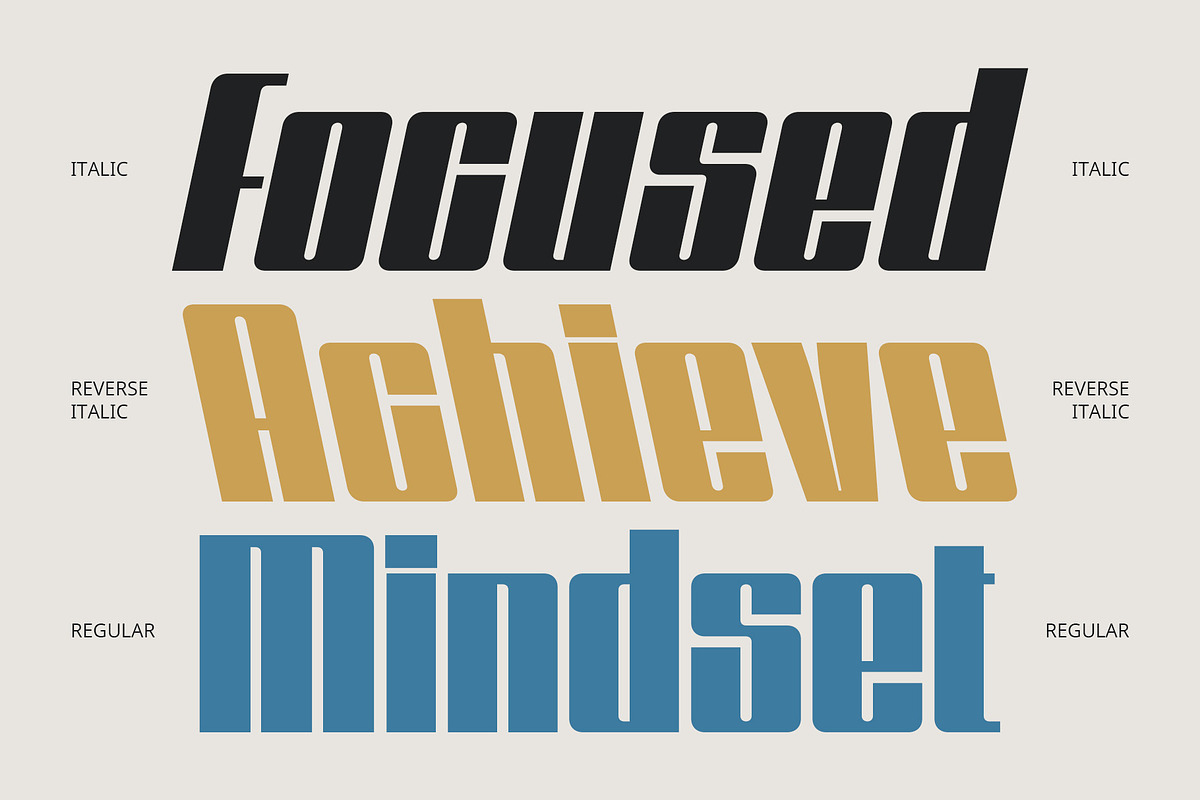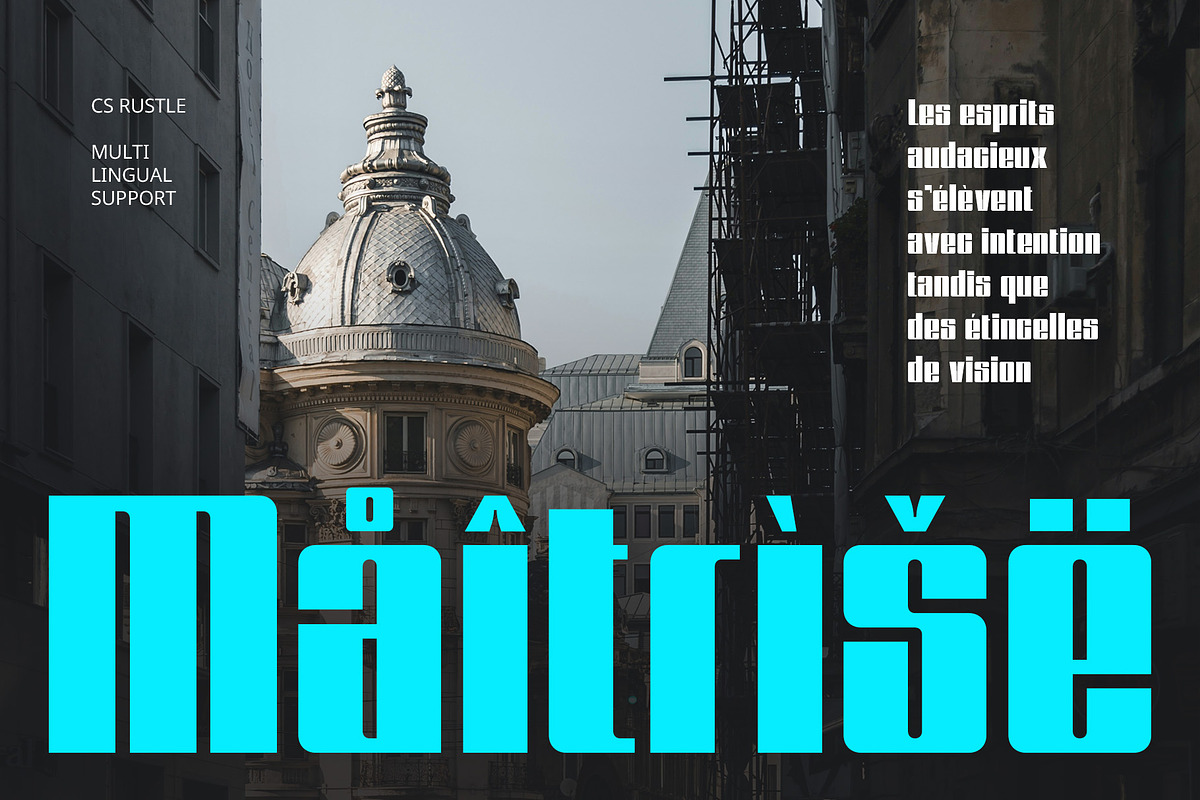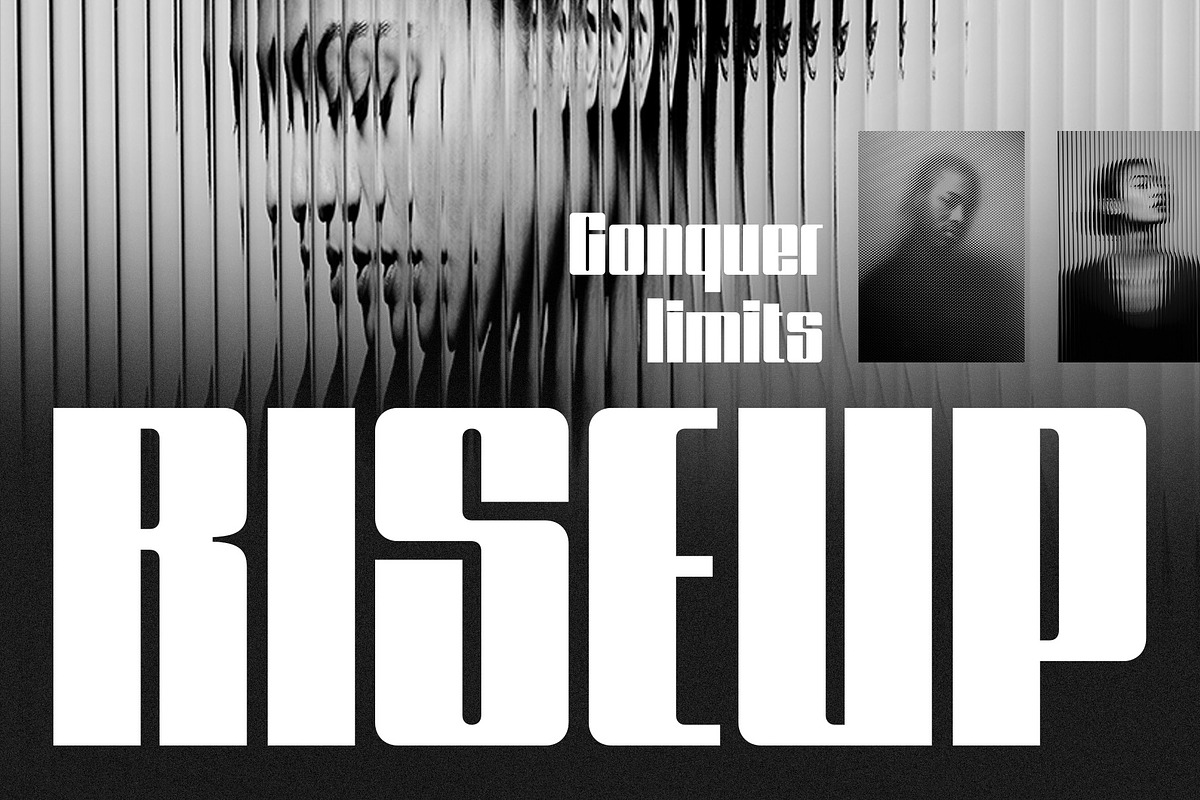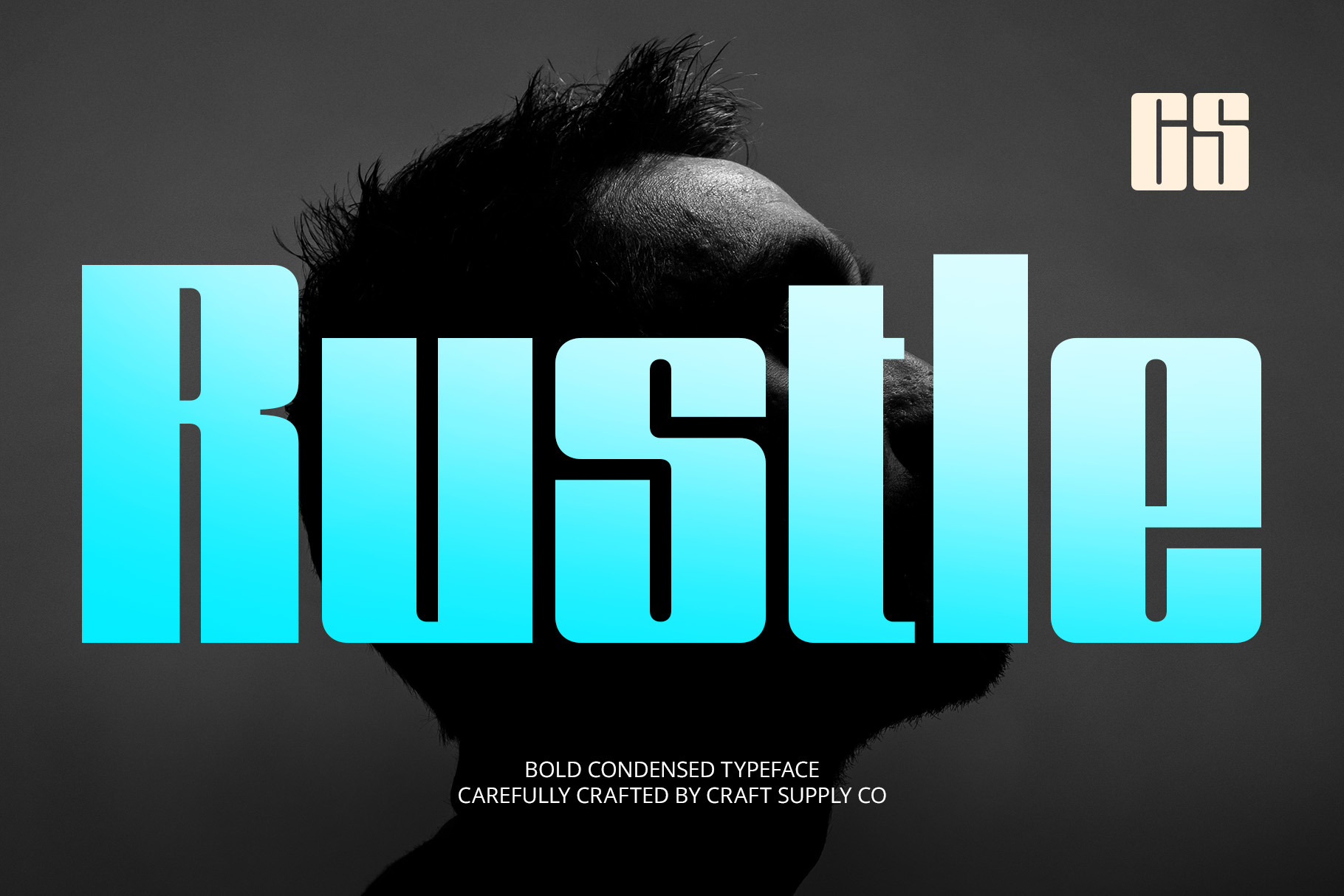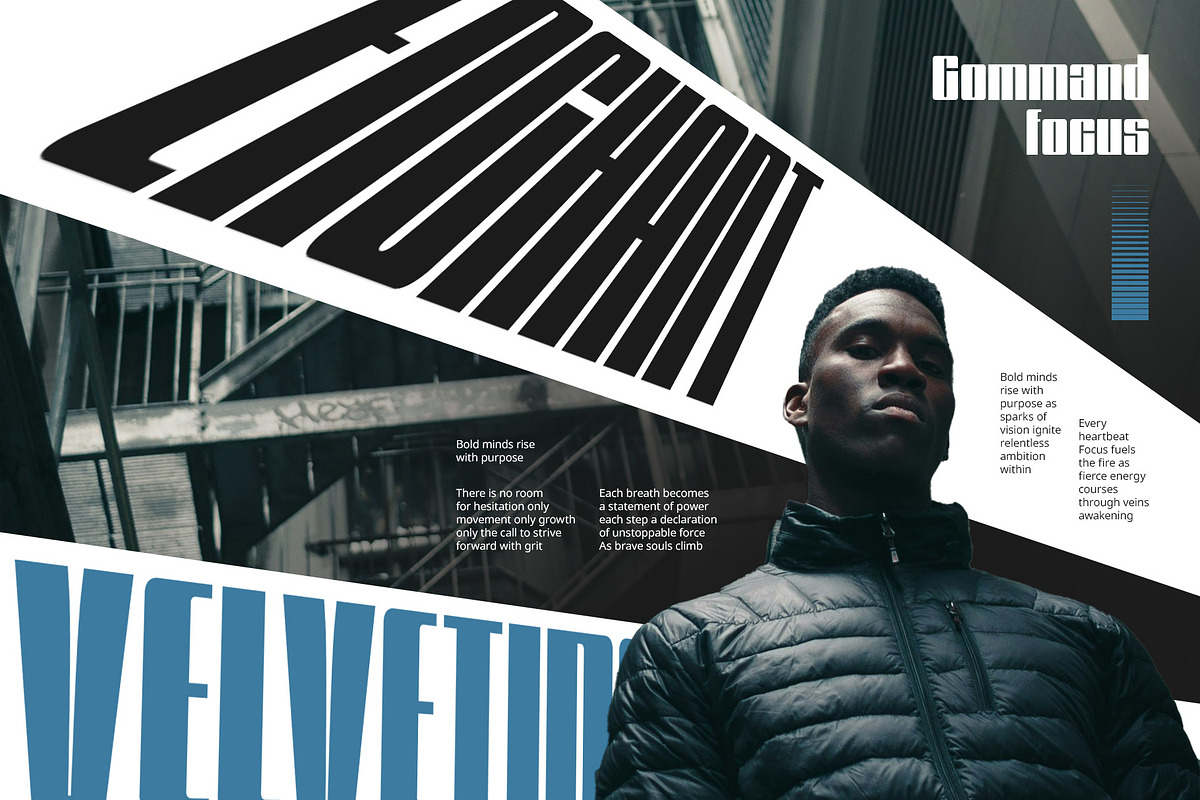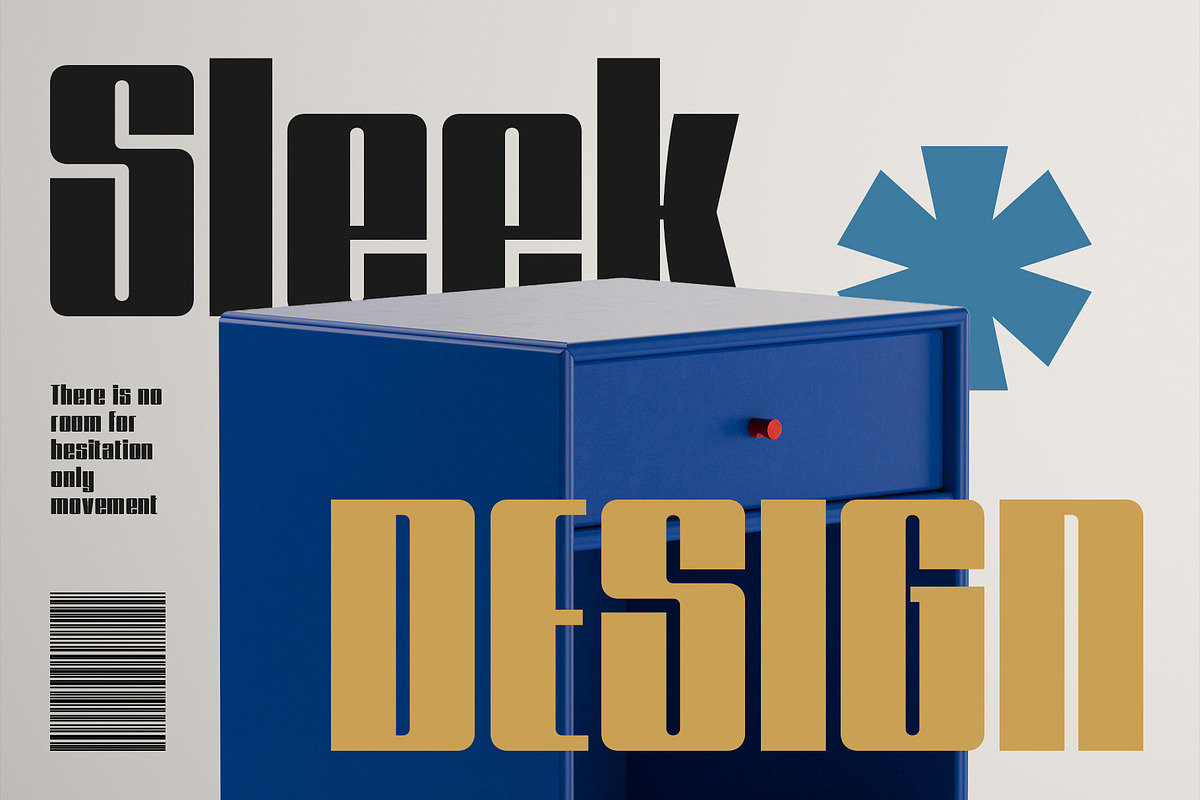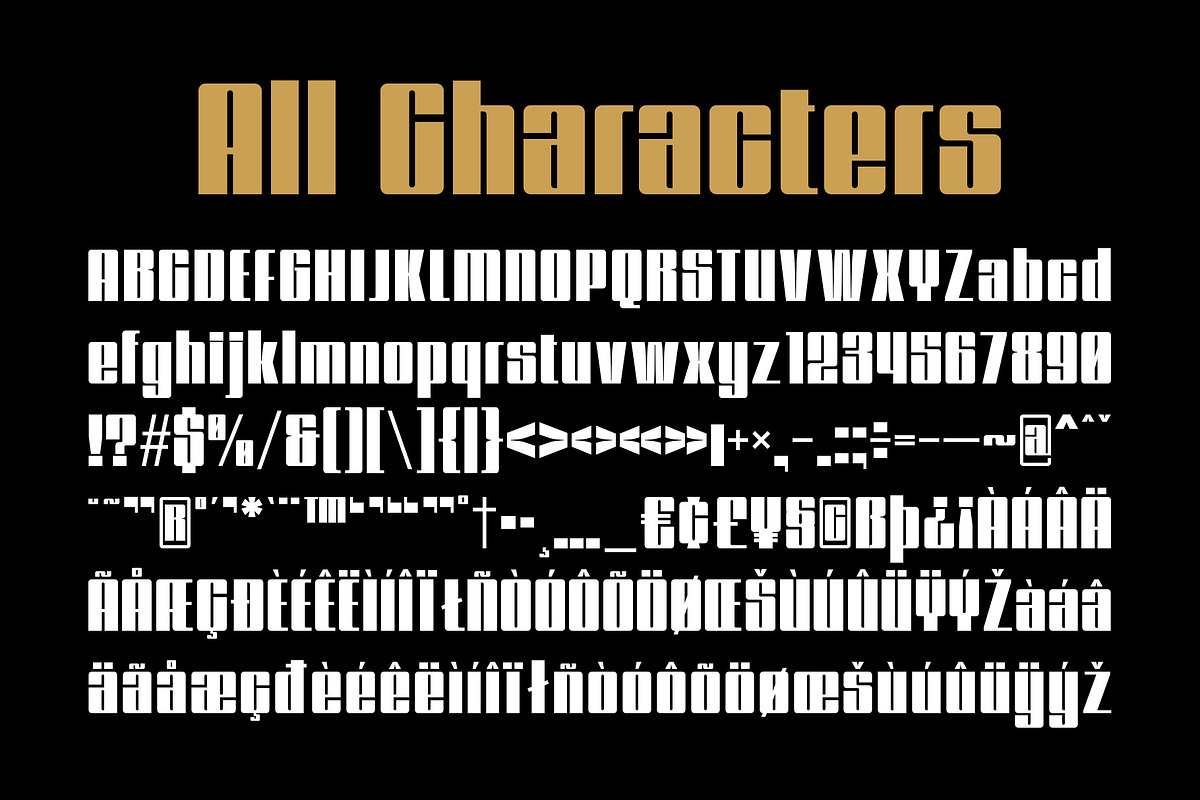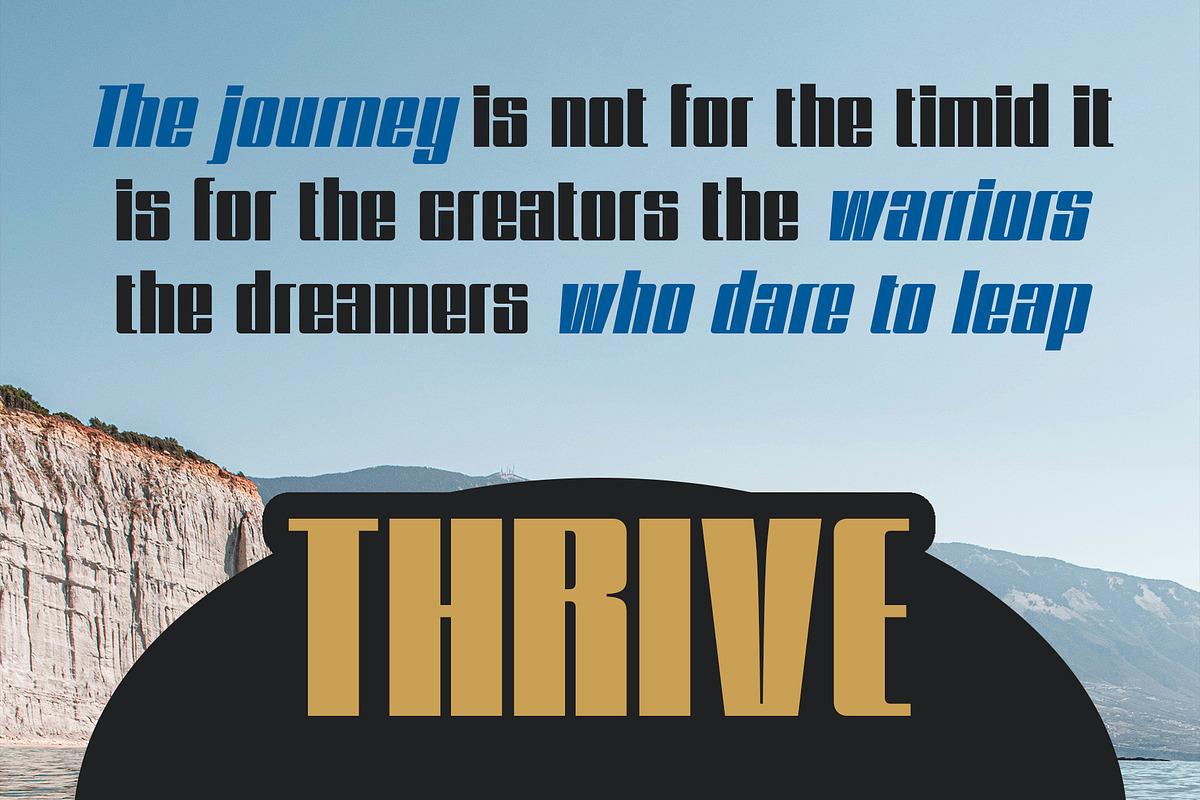
CS Rustle – Condensed Font
CS Rustle – Condensed Font: Bold Form, Compact Precision
Clean, Bold, and Contemporary Design CS Rustle is a modern sans-serif font with a bold and clean-cut appearance. Its condensed structure reflects a refined contemporary style, balancing strength and simplicity to create a confident visual presence. The precise, geometric construction gives it a crisp and polished look.
Maximized Space, Minimal Compromise Designed with a condensed width, CS Rustle is ideal for layouts where space is limited but impact is essential. Its slim and compact proportions let you fit more content without overcrowding, making it perfect for packaging, web design, posters, and banners that demand efficiency without sacrificing clarity.
Professional and Modern Aesthetic With its structured form and consistent weight, CS Rustle conveys a strong, modern, and highly professional feel. Whether used in branding, corporate identities, or editorial headlines, the font maintains a serious yet stylish tone that’s versatile across a wide range of creative projects.
Powerful for Display and Branding CS Rustle’s bold character commands attention at first glance, making it an excellent choice for headlines, logos, advertising, and promotional materials. It communicates messages with directness and authority, while its condensed style ensures a sleek, space-conscious execution. Whether used in uppercase or sentence case, CS Rustle ensures a striking and attention-grabbing presence—delivering boldness, clarity, and style in every character.